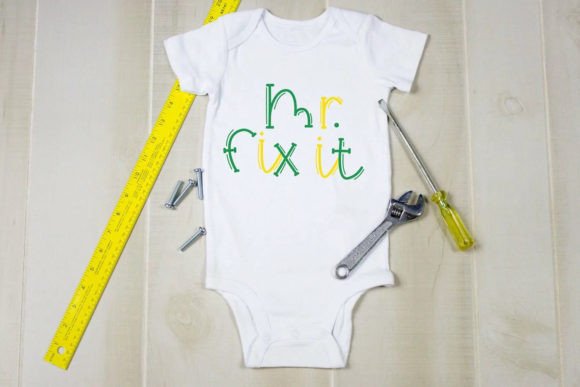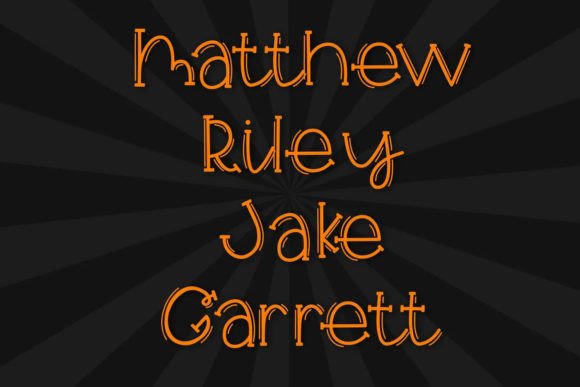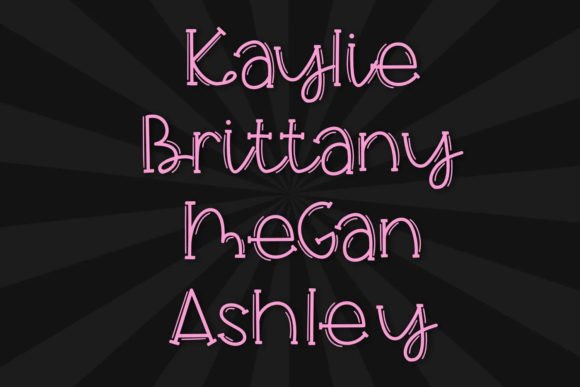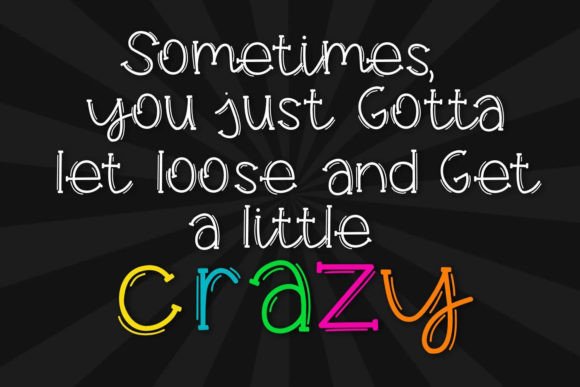
Crazy Shake Font: Add a Fun Spin to Your Designs with this Quirky Handwritten Font
Are you tired of using the same old fonts in your designs? Do you want to add a touch of whimsy and playfulness to your projects? Look no further than the Crazy Shake font! This quirky handwritten font is sure to make your designs stand out with its emphasis lines that give it a fun, shaking effect.
What is Crazy Shake Font?
Crazy Shake is a unique and eye-catching font that is perfect for designers and crafters who want to add a bit of personality to their work. This font features handwritten-style letters with emphasis lines that give it a fun, wobbly effect. The Crazy Shake font is perfect for creating eye-catching headlines, titles, and text that will grab the attention of your audience.
Features of Crazy Shake Font
- Quirky Handwritten Style: The Crazy Shake font features a quirky handwritten style that is perfect for adding a touch of personality to your designs.
- Emphasis Lines: The emphasis lines in the Crazy Shake font give it a fun, shaking effect that is sure to make your designs stand out.
- Versatile: The Crazy Shake font works great with a wide range of projects, from crafting and scrapbooking to graphic design and digital art.
Uses for Crazy Shake Font
The Crazy Shake font is perfect for a wide range of projects, including:
- Crafting and Scrapbooking: Add a touch of whimsy to your scrapbook pages and craft projects with the Crazy Shake font.
- Graphic Design: Use the Crazy Shake font to create eye-catching headlines and titles for your graphic design projects.
- Digital Art: Add a fun and playful touch to your digital art with the Crazy Shake font.
- Signs and Posters: Use the Crazy Shake font to create eye-catching signs and posters that will grab the attention of your audience.
Tips for Using Crazy Shake Font
- Use it sparingly: While the Crazy Shake font is fun and playful, it can be overwhelming if used too much. Use it sparingly to add a touch of whimsy to your designs.
- Pair it with other fonts: The Crazy Shake font pairs well with other fonts, such as sans-serif fonts and script fonts. Experiment with different font combinations to find the one that works best for your project.
- Experiment with colors: The Crazy Shake font looks great in a wide range of colors. Experiment with different colors to find the one that works best for your project.
The Crazy Shake font is a fun and playful font that is perfect for designers and crafters who want to add a touch of whimsy to their projects. With its quirky handwritten style and emphasis lines, the Crazy Shake font is sure to make your designs stand out. Whether you’re working on a crafting project, a graphic design project, or a digital art project, the Crazy Shake font is a great choice. So why not give it a try and see how it can add a fun spin to your next project?